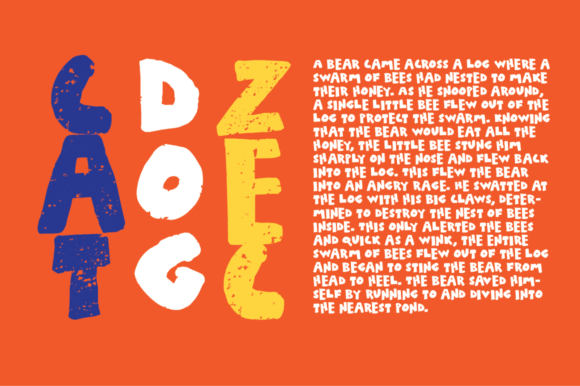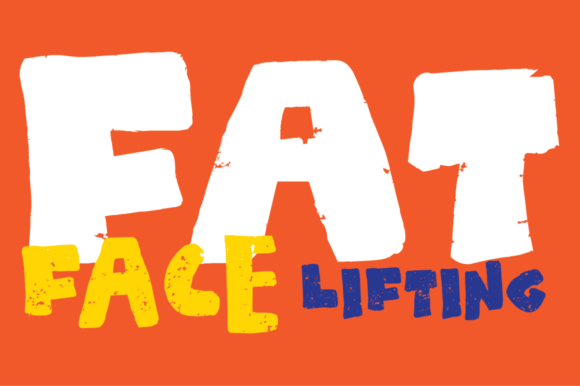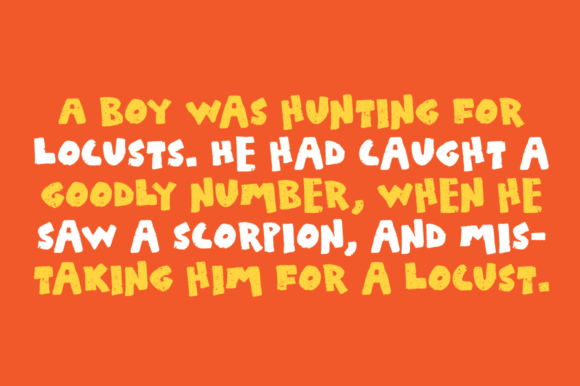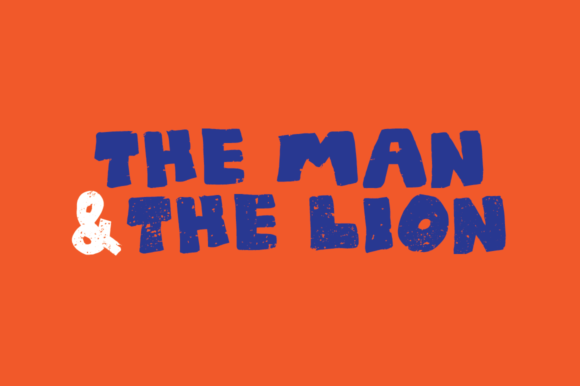
Introduction to Masni Font
Do you remember the moment when a single font choice completely transformed your creative project? For designers, that ‘aha’ moment can be a game-changer. Whether it’s a bold statement or a playful touch, the right font can elevate your design and make it truly stand out. In this article, we’ll explore the unique features of the Masni Font, a display family that’s sure to grab attention.
With its Regular and Grunge weights, Masni Font is a versatile design resource that can add a touch of personality to any project. Its bold and playful style makes it an ideal choice for designers looking to get their message across. Plus, with a transparent background, you can easily integrate it into your design without any distractions. If you’re looking for a high-quality font to add some creativity to your next project, keep reading to learn more about the Masni Font.
Key Features of Masni Font
- High-quality design resource with a unique, creative touch suitable for various projects.
- Features a transparent background, allowing for seamless integration into designs with complex backgrounds.
- Comes in a range of sizes, from 12pt to 72pt, catering to different design requirements.
- Resolution: 300 DPI, ensuring crisp and clear typography in high-resolution designs.
- Designed to be versatile and adaptable, making it an excellent choice for various creative projects.
- Perfect for designers seeking a high-quality, free design resource with a touch of creativity.
Honest Review: Masni Font
As a designer, I’m always on the lookout for high-quality fonts to enhance my creative projects. Recently, I came across the Masni Font, which I was excited to try out. After putting it through its paces, here’s my honest review.
- ✨ Unique design aesthetic: The Masni Font has a distinctive, elegant feel that sets it apart from more generic fonts.
- ✨ High quality: The font is crisp and clear, making it perfect for use in a variety of design contexts.
- ⚠️ Limited character set: While the font is lovely, it’s worth noting that it’s not a comprehensive font family, which may limit its use in certain projects.
- ⚠️ No transparent background option: Some designers may find that the font’s opaque background makes it difficult to use in certain design scenarios.
Overall, I’m impressed with the Masni Font’s unique design and high quality. While it may have some limitations, it’s a great addition to any designer’s toolkit – especially for those working on a budget. If you’re looking for a stylish, free font to enhance your creative projects, the Masni Font is definitely worth checking out.
To get the most out of the Masni Font, experiment with different font sizes, colors, and combinations to create unique and eye-catching designs. You can also use it in conjunction with other design resources to create a cohesive visual identity.
The Masni Font is ideal for various creative projects, including graphic design, digital art, and typography. It’s perfect for creating logos, business cards, social media posts, and other visual content that requires a high-quality and unique font.
What is the recommended resolution for using the Masni Font in high-quality designs?
We recommend using the Masni Font at a resolution of 300 DPI or higher for high-quality designs, such as print materials, billboards, or large-format displays. This will ensure that the font renders crisply and clearly, even at larger sizes.